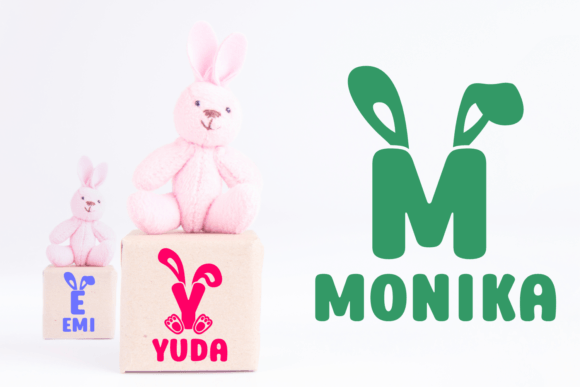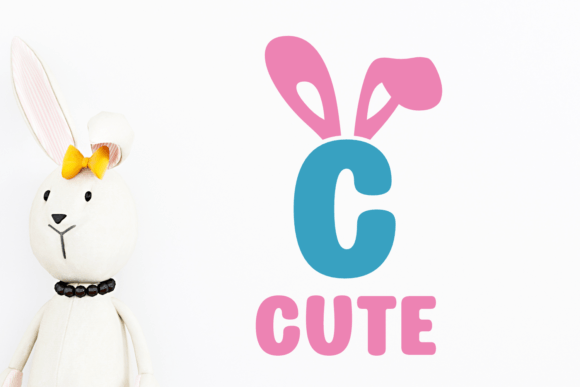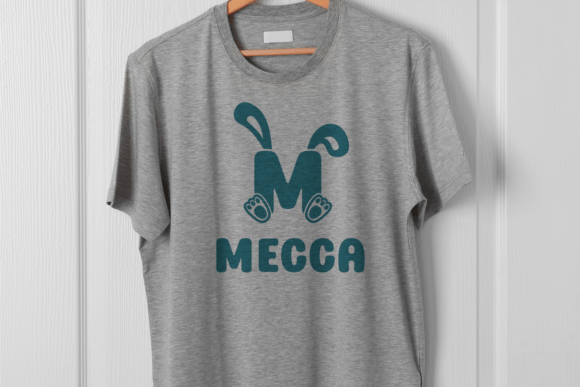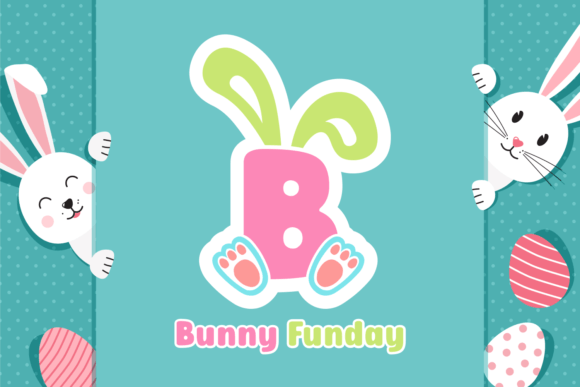
The Ultimate Guide to Bunny Funday Font: Adding Whimsy to Your Designs
I still remember the time I was working on a children’s Easter-themed project, and I just couldn’t find the perfect font to match the playful vibe I was going for. The client wanted something fun, lighthearted, and, of course, Easter-themed. That’s when I stumbled upon the Bunny Funday font, and it instantly brought a smile to my face. With its adorable bunny ears incorporated into each character, it was the perfect fit for my project. In this article, I’ll share my experience with the Bunny Funday font, its features, and how to make the most of it in your designs.
What Makes Bunny Funday Font So Special?
The defining feature of the Bunny Funday font is, of course, the addition of bunny ears to each character. Whether it’s the curves of a lowercase “b” or the loops of an uppercase “O,” every letter is adorned with cute bunny ears, adding a delightful and playful touch to the font’s design. This whimsical and charming typeface captures the playful and joyful spirit of bunnies, making it perfect for projects that require a fun and lighthearted aesthetic.
Here’s what I love about the Bunny Funday font:
- ✨ Unique and playful design: The bunny ears add a touch of whimsy to each character, making it perfect for Easter-themed designs, children’s materials, and more.
- ✅ Highly versatile: This font can be used for a wide range of projects, from branding to event promotion.
- 🎉 Fun to use: The font’s playful design makes it a joy to work with, and it’s sure to bring a smile to your face.
And here are some small quirks to keep in mind:
- 🤔 Limited use cases for formal designs: While the font is perfect for playful projects, it may not be the best fit for more formal designs.
- ⚠️ Some characters may be harder to read: The bunny ears can make some characters, such as the lowercase “q” and “p,” a bit harder to read.
The Designer Inspiration Behind Bunny Funday
The Bunny Funday font was designed with one goal in mind: to bring a touch of whimsy and joy to designs. The designer, inspired by the playful spirit of bunnies, created a font that would capture the fun and lighthearted essence of these adorable creatures. With its cute bunny ears and playful design, the Bunny Funday font is sure to bring a smile to your face.
| What is the Bunny Funday font best used for? | The Bunny Funday font is perfect for projects that require a fun and lighthearted aesthetic, such as children’s materials, Easter-themed designs, branding, and event promotion. |
| Is the Bunny Funday font suitable for formal designs? | No, the Bunny Funday font is not suitable for formal designs. Its playful design makes it better suited for whimsical and fun projects. |
| Is the Bunny Funday font easy to read? | While the Bunny Funday font is generally easy to read, some characters, such as the lowercase “q” and “p,” may be harder to read due to the bunny ears. |